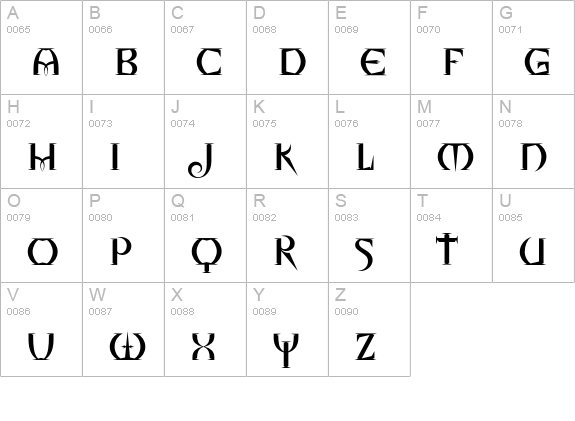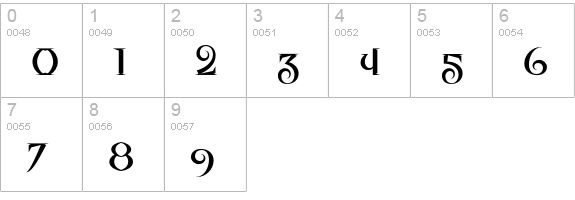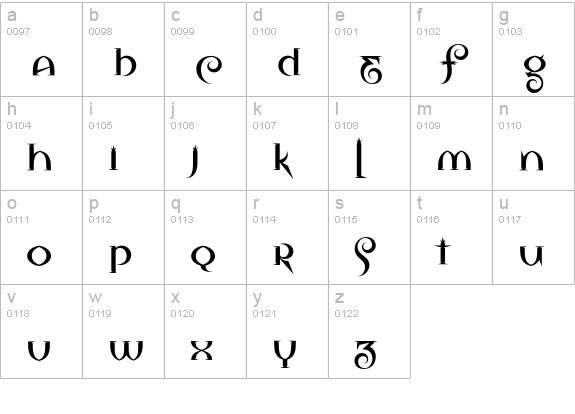
Vitriol Font Details
Introducing Vitriol Font, a stunning typeface that embodies a perfect balance of elegance, modernity, and a touch of edginess. This font is a true testament to the power of typography, with its bold and captivating letterforms that demand attention and leave a lasting impression. Vitriol Font's unique design features clean lines and sharp angles, creating a visually striking experience for any design project. Whether you're creating eye-catching headlines, captivating logos, or engaging social media posts, this font is guaranteed to elevate your work to new heights. What sets Vitriol Font apart from the rest is not only its remarkable design but also its accessibility. We understand the importance of making great design available to everyone, which is why Vitriol Font is freely available to download at FontsMarket.com. Yes, you read that right - this exceptional font can be yours at no cost, allowing you to bring your creative visions to life without breaking the bank. With its wide range of characters and extensive language support, Vitriol Font ensures that you never have to compromise on versatility. Whether you're designing for print or digital platforms, this font effortlessly adapts to any project, making it an indispensable tool for designers, artists, and creatives of all kinds. So why wait? Unlock the potential of your designs with Vitriol Font. Download it for free today at FontsMarket.com and witness the transformative power of this one-of-a-kind font. Let your creativity soar, and make a bold statement with Vitriol Font - a true masterpiece that sets you apart from the crowd.